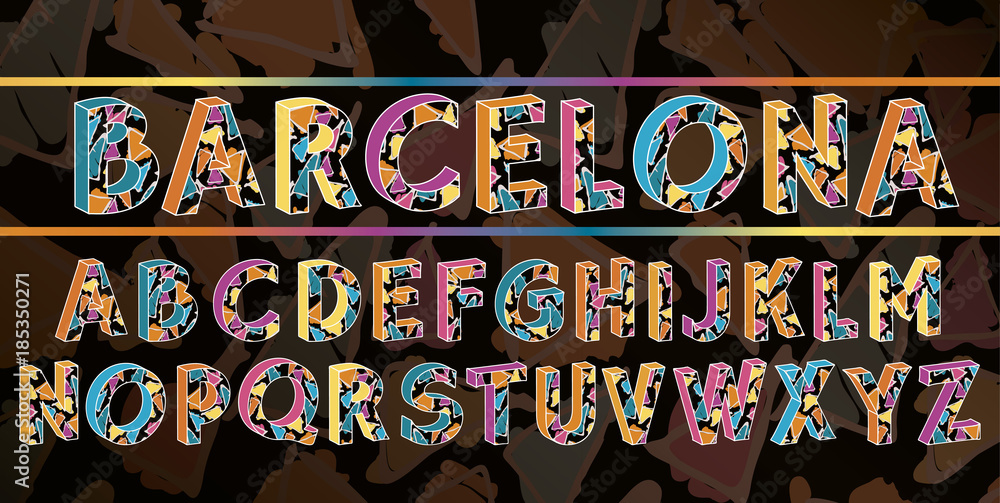
What Is A Spanish Style Font . Z y m m anagram nick's fonts 1 styles. No wonder mexican fonts have a unique and recognizable style, often evoking images of mariachi music, tequila, and wild festivals. Browse by alphabetical listing, by style, by author or by popularity. The perfect way to fuse traditional and contemporary styles into your design is with a creative mexican font. From classic serifs to modern sans serifs, these fonts will bring a unique look to. Z y m m andika basic sil. From elegant calligraphy to bold and expressive lettering, these spanish fonts capture the rich heritage and artistic spirit of the spanish. Archive of freely downloadable fonts. And we have the perfect. Z y m m andada huerta tipográfica 8 styles. Spanish fonts should strike a balance between legibility and readability. Every font is free to download! Typography matters in spanish fonts. Add a spanish flair to your designs with our selection of free, stylish fonts! Click to find the best 78 free fonts in the spanish style.
Archive of freely downloadable fonts. Typography matters in spanish fonts. Add a spanish flair to your designs with our selection of free, stylish fonts! From classic serifs to modern sans serifs, these fonts will bring a unique look to. Z y m m andika basic sil. Z y m m anagram nick's fonts 1 styles. Click to find the best 78 free fonts in the spanish style. Spanish fonts should strike a balance between legibility and readability. And we have the perfect. No wonder mexican fonts have a unique and recognizable style, often evoking images of mariachi music, tequila, and wild festivals.
What Is A Spanish Style Font Z y m m anagram nick's fonts 1 styles. Every font is free to download! Typography matters in spanish fonts. The perfect way to fuse traditional and contemporary styles into your design is with a creative mexican font. No wonder mexican fonts have a unique and recognizable style, often evoking images of mariachi music, tequila, and wild festivals. Click to find the best 78 free fonts in the spanish style. Z y m m andada huerta tipográfica 8 styles. And we have the perfect. Archive of freely downloadable fonts. Z y m m anagram nick's fonts 1 styles. Add a spanish flair to your designs with our selection of free, stylish fonts! Browse by alphabetical listing, by style, by author or by popularity. Spanish fonts should strike a balance between legibility and readability. From elegant calligraphy to bold and expressive lettering, these spanish fonts capture the rich heritage and artistic spirit of the spanish. Z y m m andika basic sil. From classic serifs to modern sans serifs, these fonts will bring a unique look to.
Spanish Fonts Font Bundles What Is A Spanish Style Font Z y m m andada huerta tipográfica 8 styles. Z y m m andika basic sil. Spanish fonts should strike a balance between legibility and readability. Click to find the best 78 free fonts in the spanish style. From classic serifs to modern sans serifs, these fonts will bring a unique look to. No wonder mexican fonts have a unique. What Is A Spanish Style Font.
15+ Best Spanish Fonts for Your Typography Needs What Is A Spanish Style Font Every font is free to download! Z y m m andada huerta tipográfica 8 styles. Typography matters in spanish fonts. From elegant calligraphy to bold and expressive lettering, these spanish fonts capture the rich heritage and artistic spirit of the spanish. Archive of freely downloadable fonts. And we have the perfect. Browse by alphabetical listing, by style, by author or. What Is A Spanish Style Font.
Spain Font (100482) Other Font Bundles What Is A Spanish Style Font And we have the perfect. Z y m m andada huerta tipográfica 8 styles. Click to find the best 78 free fonts in the spanish style. Z y m m andika basic sil. Every font is free to download! Spanish fonts should strike a balance between legibility and readability. From elegant calligraphy to bold and expressive lettering, these spanish fonts. What Is A Spanish Style Font.
Hand drawn Spanish font, ink or marker style. White letters and numbers What Is A Spanish Style Font Every font is free to download! Z y m m andada huerta tipográfica 8 styles. No wonder mexican fonts have a unique and recognizable style, often evoking images of mariachi music, tequila, and wild festivals. Z y m m anagram nick's fonts 1 styles. Spanish fonts should strike a balance between legibility and readability. Browse by alphabetical listing, by style,. What Is A Spanish Style Font.
Spanish Font Fontspring What Is A Spanish Style Font Click to find the best 78 free fonts in the spanish style. Spanish fonts should strike a balance between legibility and readability. Every font is free to download! Typography matters in spanish fonts. Z y m m andika basic sil. Browse by alphabetical listing, by style, by author or by popularity. Archive of freely downloadable fonts. From elegant calligraphy to. What Is A Spanish Style Font.
Spanish Font Alphabet What Is A Spanish Style Font Browse by alphabetical listing, by style, by author or by popularity. Typography matters in spanish fonts. Spanish fonts should strike a balance between legibility and readability. From classic serifs to modern sans serifs, these fonts will bring a unique look to. Z y m m andada huerta tipográfica 8 styles. From elegant calligraphy to bold and expressive lettering, these spanish. What Is A Spanish Style Font.
Spanish Stencil Font Download For Free, View Sample Text, Rating And What Is A Spanish Style Font No wonder mexican fonts have a unique and recognizable style, often evoking images of mariachi music, tequila, and wild festivals. Add a spanish flair to your designs with our selection of free, stylish fonts! Every font is free to download! Spanish fonts should strike a balance between legibility and readability. Z y m m andada huerta tipográfica 8 styles. From. What Is A Spanish Style Font.
Spanish Alphabet, Font, Layout, Color, Vector. Stock Vector What Is A Spanish Style Font And we have the perfect. Z y m m andika basic sil. From classic serifs to modern sans serifs, these fonts will bring a unique look to. Click to find the best 78 free fonts in the spanish style. Z y m m andada huerta tipográfica 8 styles. Archive of freely downloadable fonts. Z y m m anagram nick's fonts. What Is A Spanish Style Font.
1645 Old Spanish Font download free What Is A Spanish Style Font Typography matters in spanish fonts. And we have the perfect. From classic serifs to modern sans serifs, these fonts will bring a unique look to. Z y m m andada huerta tipográfica 8 styles. Spanish fonts should strike a balance between legibility and readability. Add a spanish flair to your designs with our selection of free, stylish fonts! No wonder. What Is A Spanish Style Font.